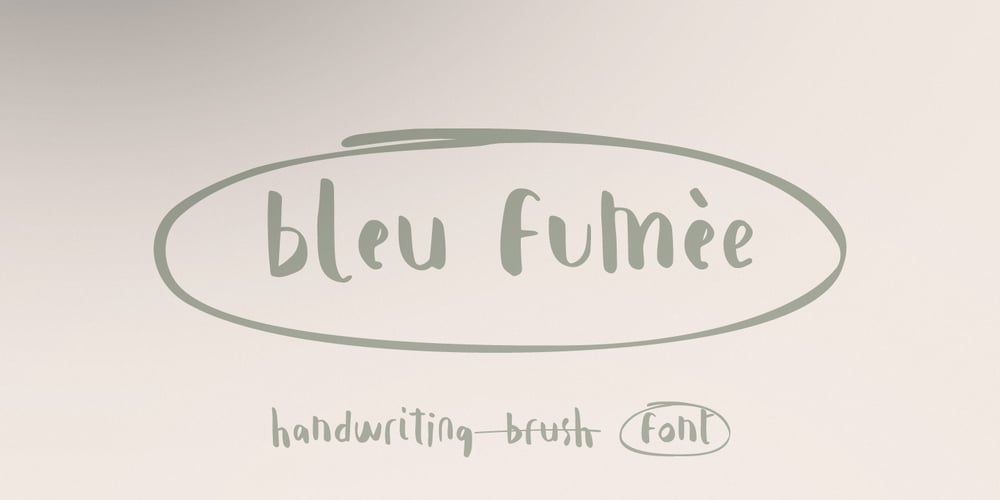
Bleu Femee
Bleu Femee font
Bleu Femee Font Family was designed by Egi Ahmad Mufid and published by Typetemp Studio. Bleu Femee contains 2 styles and family package options. Bleu Fumèe is handwritten like a note, is perfect for quotes, notes, has 2 variants of each letter, and there are ligatures for a natural look. It’s perfect and perfect for social media quotes, handwriting, or campaigns.Features : Uppercase and Lowercase Stylistic Alternates & Ligatures Numerals & Punctuation Multilanguange PUA Encoded Web Font Included Contact me with an inbox message If you have any question. Thank you! Happy Creating.